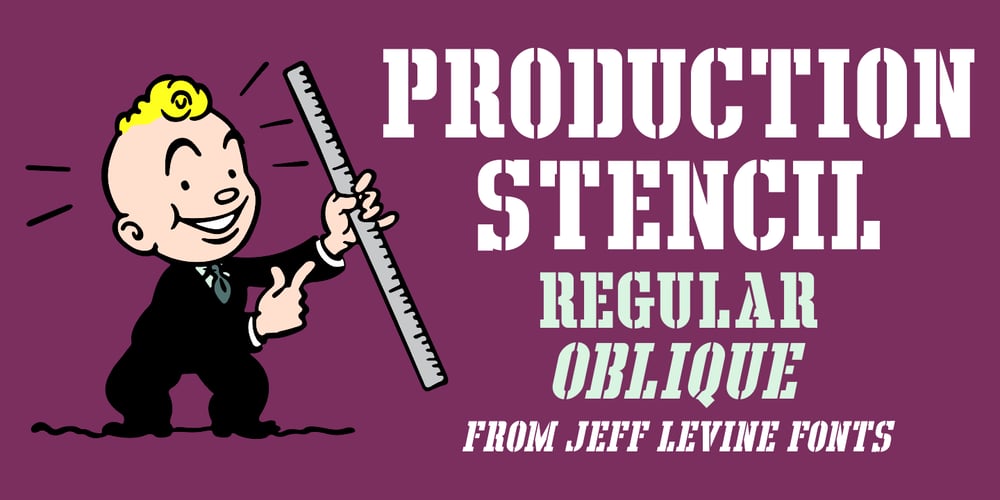
Production Stencil JNL Font Family was designed by Jeff Levine and published by Jeff Levine. Production Stencil JNL contains 2 styles and family package options. In the 1956-57 edition of Broadcasting Telecasting, various ads utilized a bold stencil font to promote various TV programs.This condensed slab serif stencil design inspired Production Stencil JNL, which is available in both regular and oblique versions.